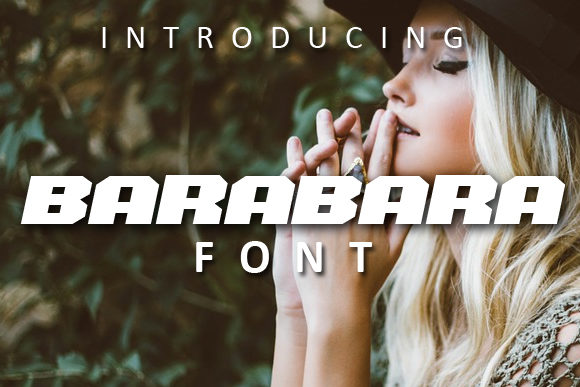
Introducing Barbara Font, a captivating display font that will bestow upon your creative endeavors a renewed sense of vitality and distinctiveness. Its striking characters, meticulously crafted by the talented vladimirnikolic, are designed to make a lasting impression, leaving your audience spellbound.
With Barbara Font as your artistic ally, you possess the power to transform mundane designs into captivating masterpieces. Its bold strokes command attention, while its playful curves exude an undeniable charm, effortlessly captivating the viewer's gaze. Whether you're crafting logos, posters, or website designs, Barbara Font will elevate your creations to new heights of visual appeal.
Embrace the limitless possibilities that Barbara Font presents. Its versatility knows no bounds, making it an ideal choice for an array of projects, from elegant wedding invitations to eye-catching social media graphics. Its ability to effortlessly blend with other design elements ensures that your message will always shine through, leaving a lasting impact on your audience.
Unlock your creative potential and unleash the boundless possibilities of Barbara Font. Its user-friendly nature makes it accessible to designers of all skill levels, ensuring that your artistic vision can be effortlessly brought to life. Experience the joy of creating designs that captivate and inspire, leaving a lasting legacy of visual excellence.